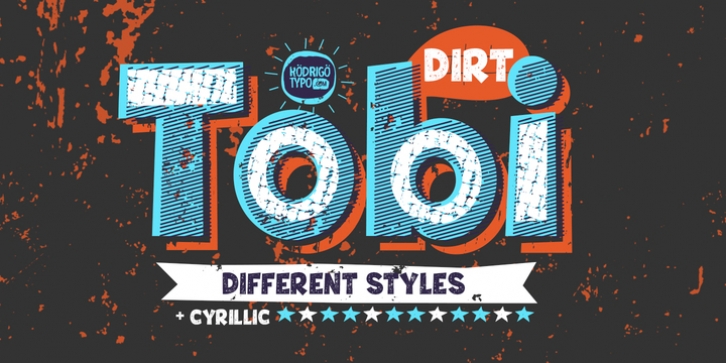
Tobi Dirt was designed by Rodrigo Araya Salas and published by RodrigoTypo. Tobi Dirt contains 11 styles and family package options.
Tobi dirt, is a variant of 'Tobi' this time it is presented in a dirty, rough with different styles and forms, the idea is to combine everything, and containing ornaments set with Cyrillic alphabet.
Tobi Light Dirt Rough·
Tobi Dirt Black·
Tobi Dirt Black Rough Normal·
Tobi Dirt Layer·
Tobi Dirt Shadow·
Tobi Dirt Shadow Line·
Tobi Light Dirt Line·
Tobi Dirt Black Line Normal·
Tobi Dirt Dingbat Shape·
Tobi Dirt Dingbat Shape02·